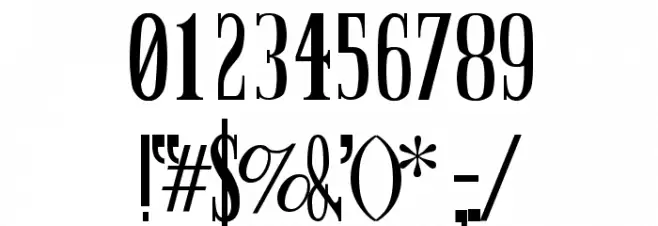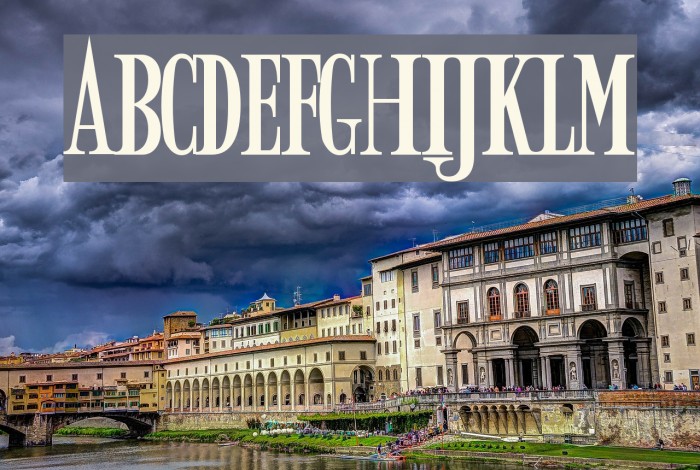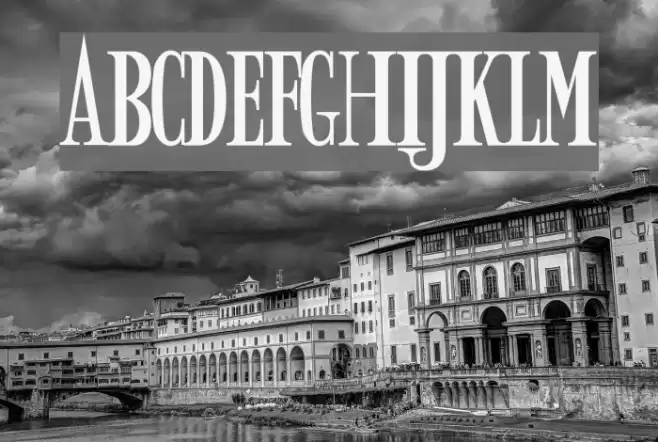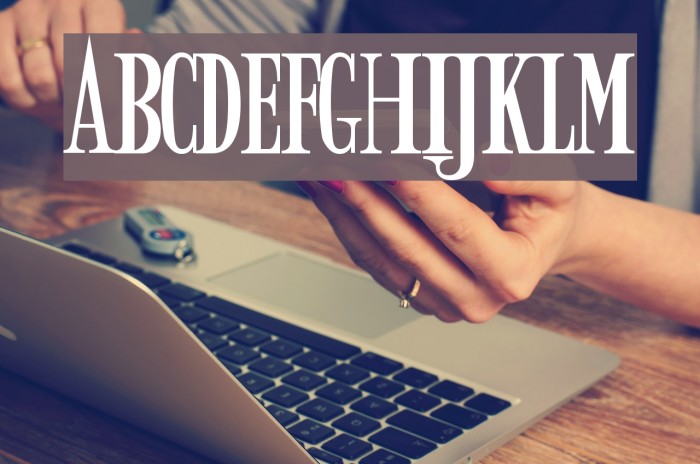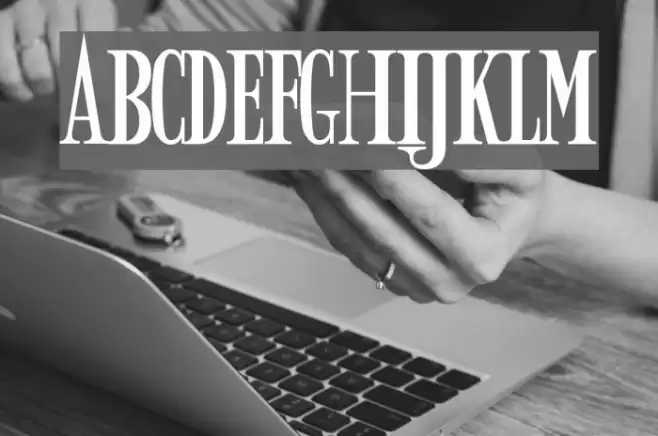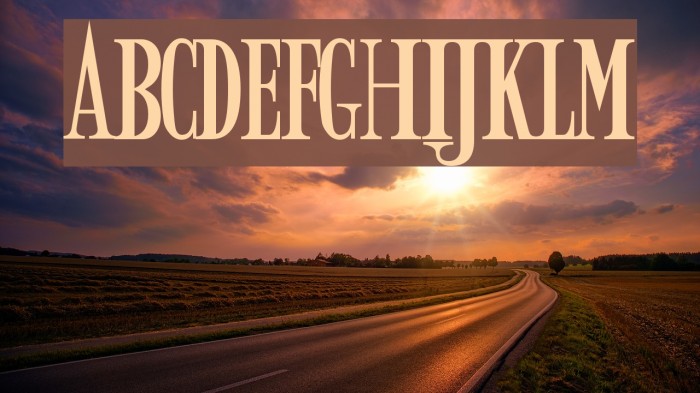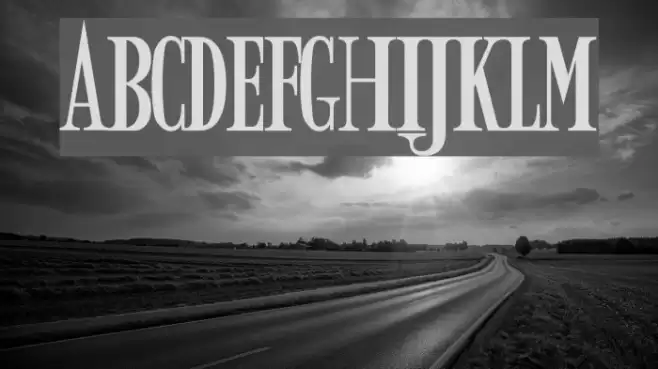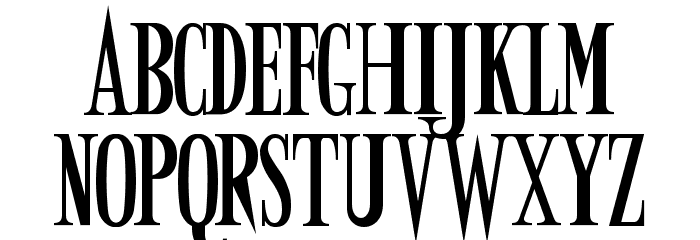
Army of Darkness Font
Army of Darkness Description
This font features a bold and dramatic style with high contrast between thick and thin strokes, giving it a striking and impactful appearance. The characters are tall and narrow, with sharp serifs that add a touch of elegance and sophistication. The uppercase letters are particularly elongated, creating a sense of grandeur and authority. The numbers and special characters maintain the same boldness and style, ensuring consistency across all elements. This font is designed to capture attention and convey a sense of power and drama.
| Proposed Projects | Ideal for movie posters, book covers, and branding projects that require a dramatic and authoritative presence. |